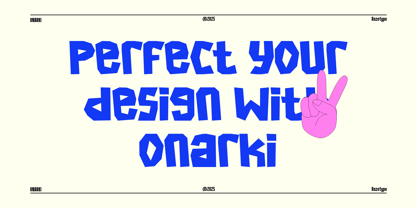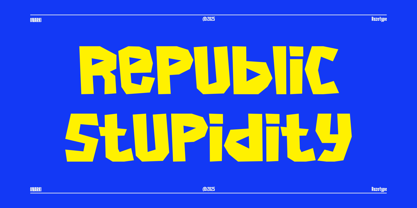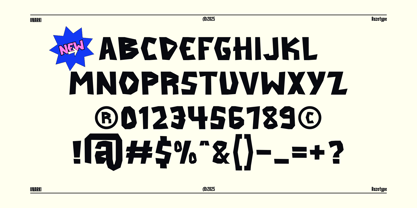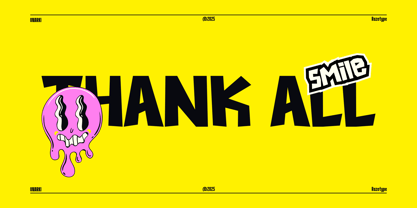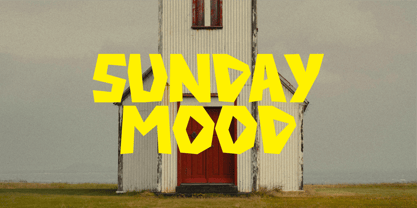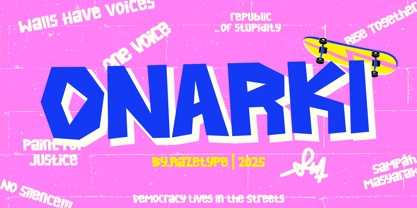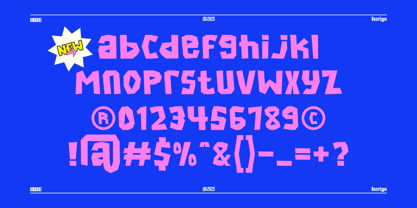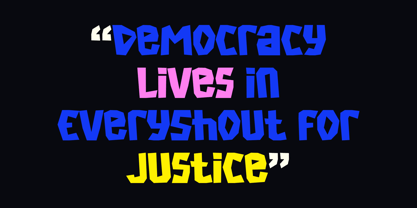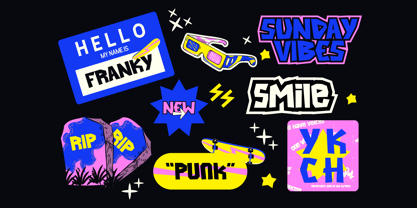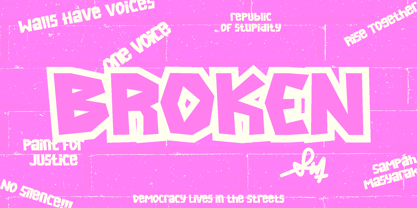
Onarki
by Razetype
The Onarki Font Family was designed by Ahmad Faizal and published by Razetype. Onarki contains 1 styles. More about this family
Introducing ONARKI font is a bold and expressive display typeface that captures the rebellious energy of street culture and urban art. With its jagged edges, geometric shapes, and dynamic irregularities, the font embodies a sense of freedom and defiance, echoing the raw visual language of graffiti and skate culture. Its strong contrast and angular construction give it a modern yet anarchic character, making it ideal for headlines, posters, and statement designs. The vibrant color palette and playful use of typographic forms reinforce its youthful and energetic identity.